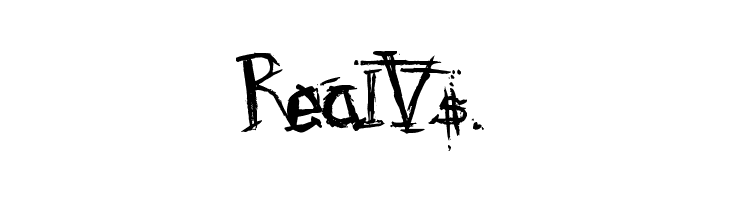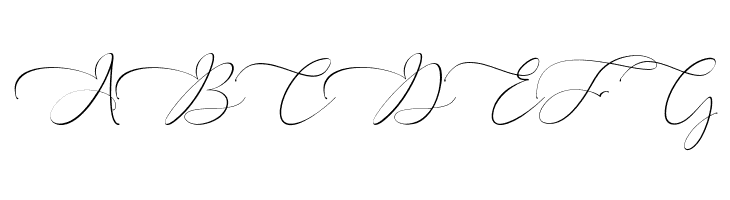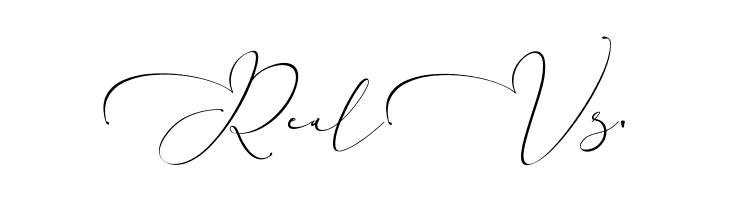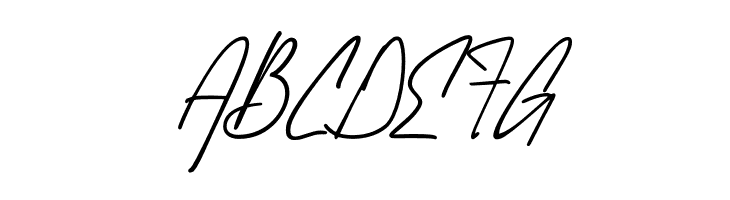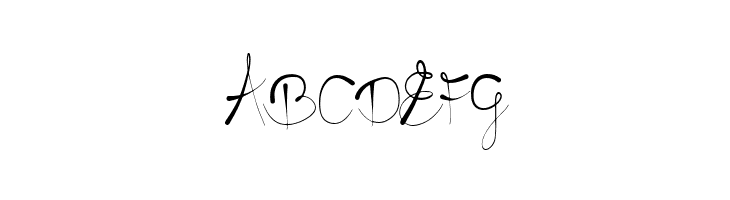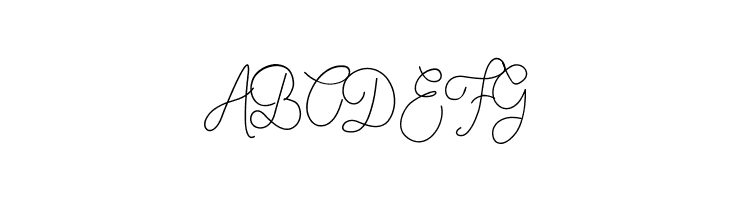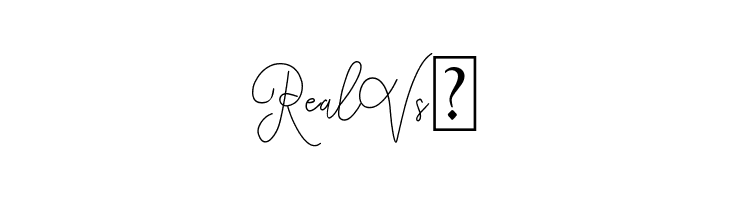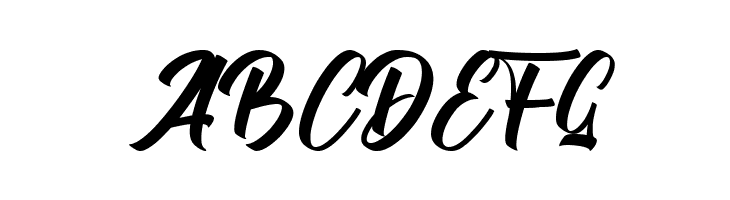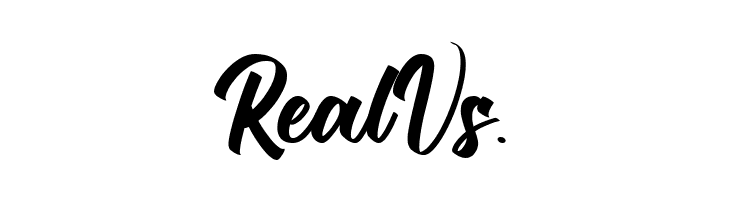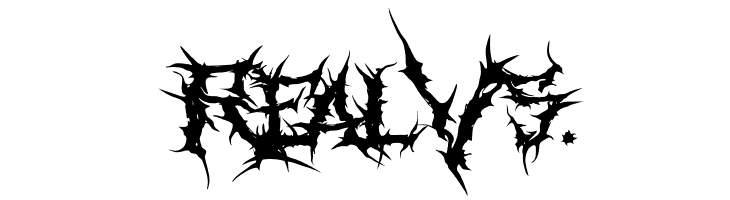
A whimsical, illustrative font with unique drawings for each character.
A modern, slanted font with smooth curves and consistent strokes.
A bold, playful font with rounded, bubbly characters ideal for retro-themed designs.
A playful, bold font with thick, rounded characters and a bubbly appearance.
A textured, hand-drawn font with a playful, chalk-like appearance.
Elegant cursive script with a handwritten feel.
A futuristic, geometric font with rounded edges and a bold, stencil-like appearance.
A bold, dynamic brush script font with expressive strokes.
A bold, hand-drawn font with a textured, cross-hatched pattern.
A playful, handwritten font with tall, narrow letters and a casual style.
A clean, geometric font with consistent stroke widths and a modern aesthetic.
A modern, geometric sans-serif font with clean lines and balanced spacing.
A bold, modern font with geometric elements and a strong visual impact.
A bold slab serif font with strong, well-defined characters.
A bold, brush script font with dynamic strokes and artistic flair.
An ornate blackletter font with intricate flourishes and bold strokes.
A whimsical, artistic font with flowing, cursive-like strokes and playful loops.
An elegant and flowing script font with intricate loops and swirls.
An elegant, flowing script font with smooth, cursive strokes and artistic flair.
A bold and robust serif font with strong, pronounced strokes.
A bold, hand-drawn font with a playful, sketch-like appearance.
A bold, brush-style font with dynamic, expressive strokes.
A graceful calligraphic script font with elegant curves and loops.
A playful, handwritten font with a casual and dynamic style.
A bold, hand-drawn font with an expressive, distressed style.
A dynamic, handwritten font with elongated, slanted characters.